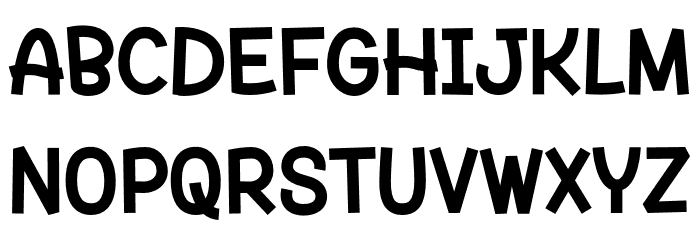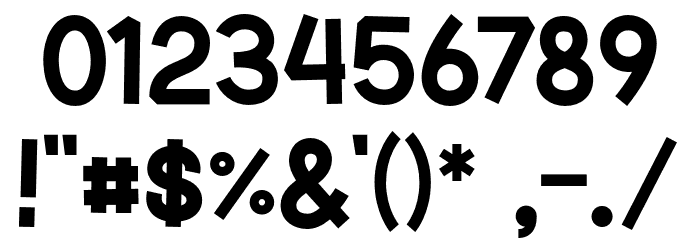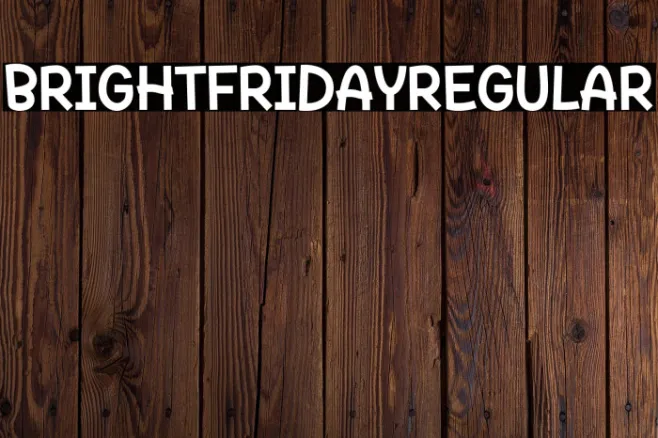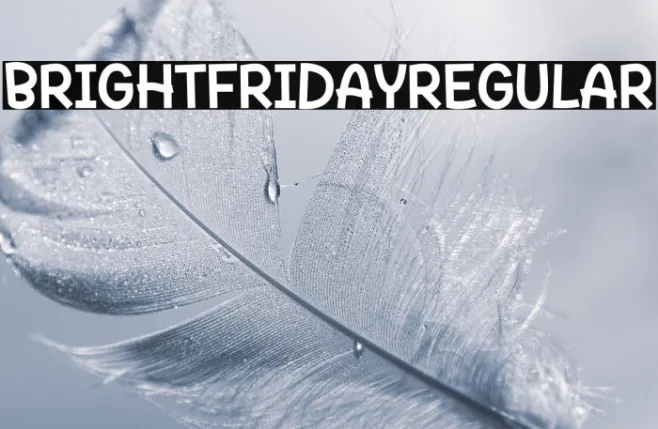
BrightFridayRegular Font
This font features a bold and playful style with a slightly irregular and hand-drawn appearance. The uppercase and lowercase letters are characterized by their thick strokes and rounded edges, giving them a friendly and approachable look. The numerals are equally bold, maintaining the playful aesthetic. Special characters are well-integrated, matching the overall style. The font's design is consistent, with a focus on readability and a touch of whimsy, making it suitable for a variety of creative projects.
A bold, playful font with a hand-drawn, friendly appearance.
- Proposed Projects: Ideal for children's books, playful branding, posters, and casual invitations.
- Overall Style: Playful, Hand-drawn